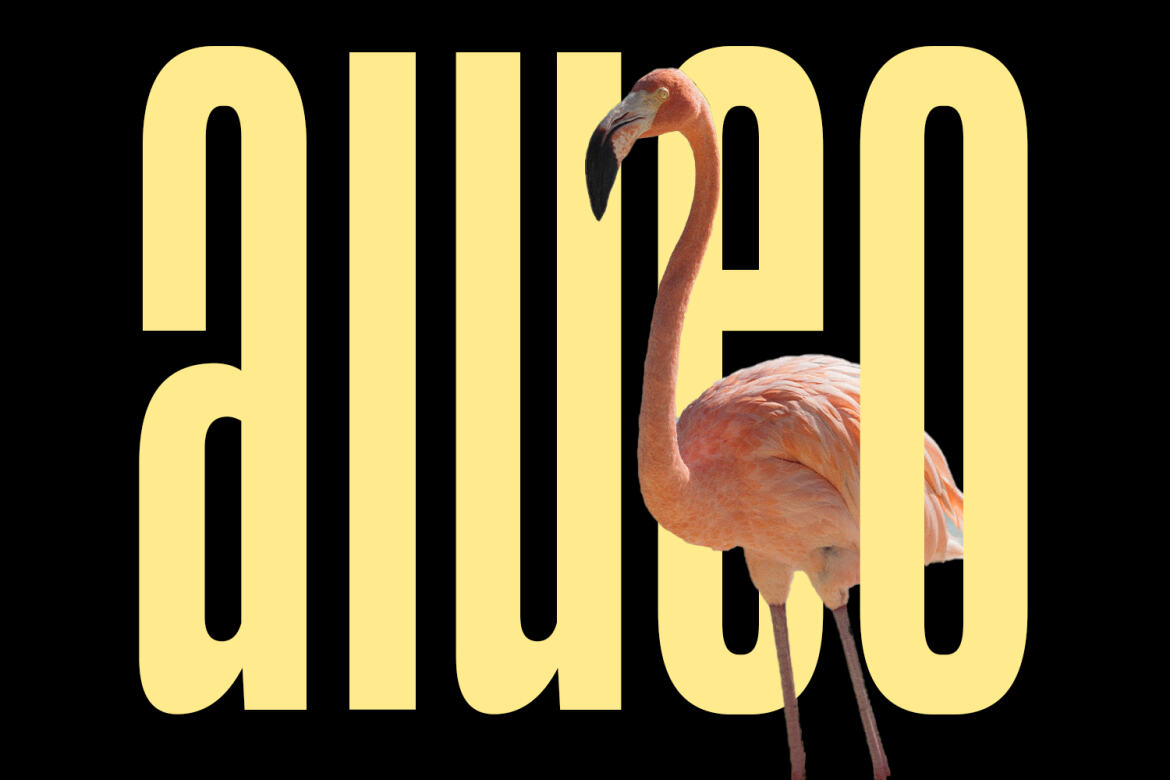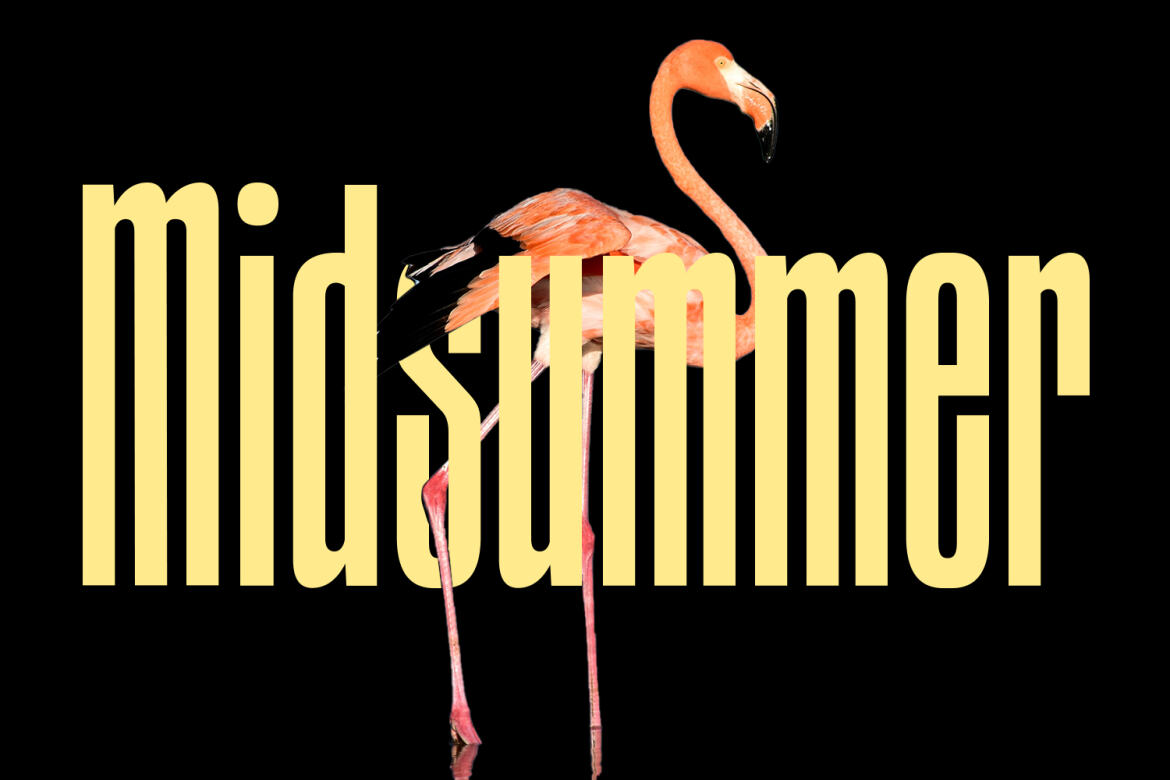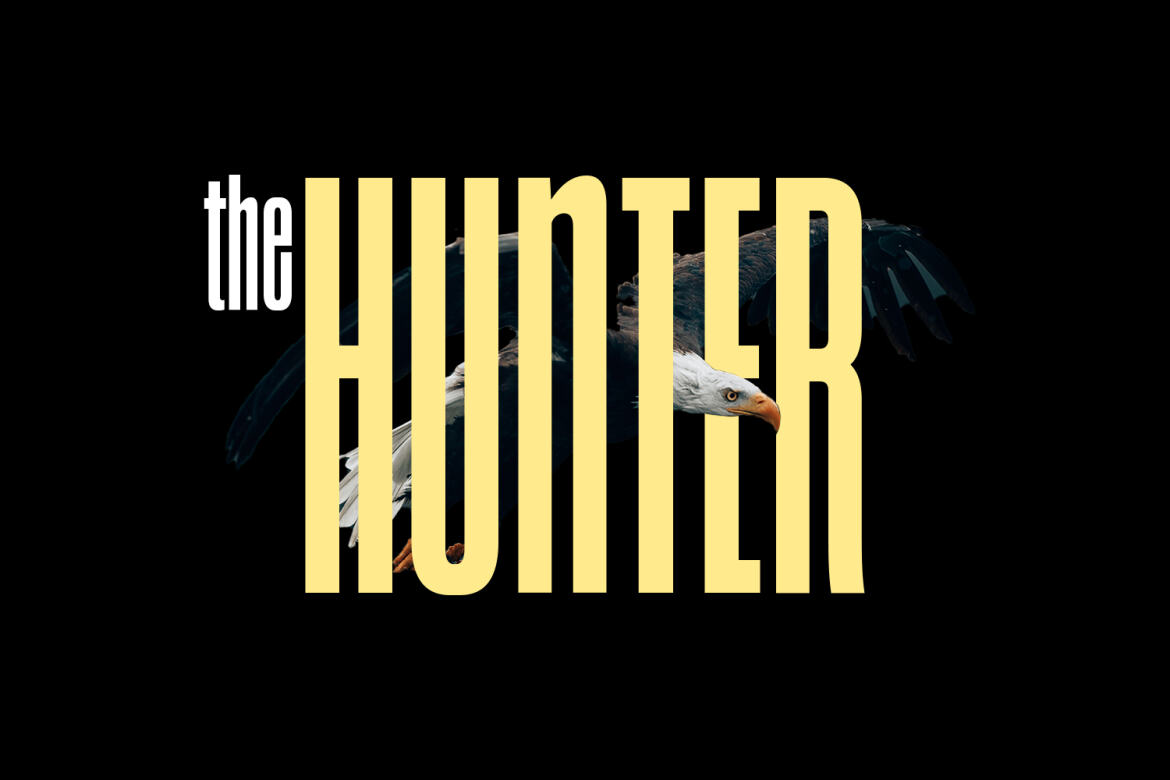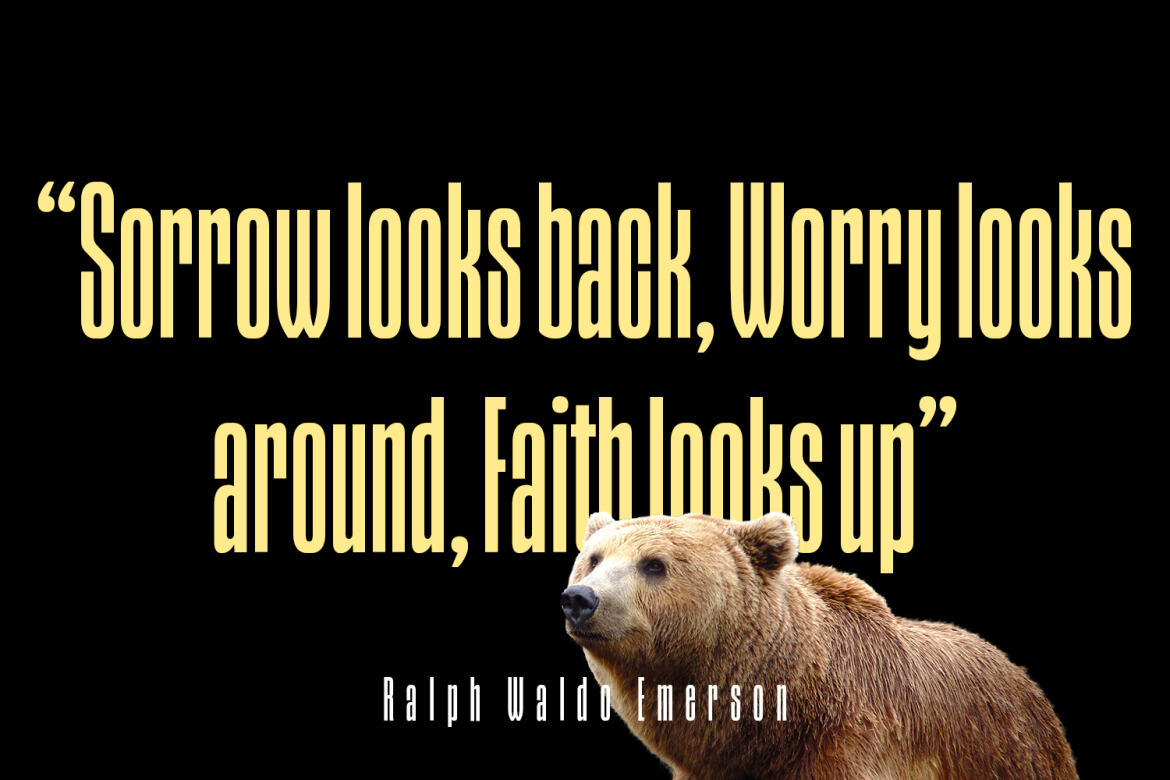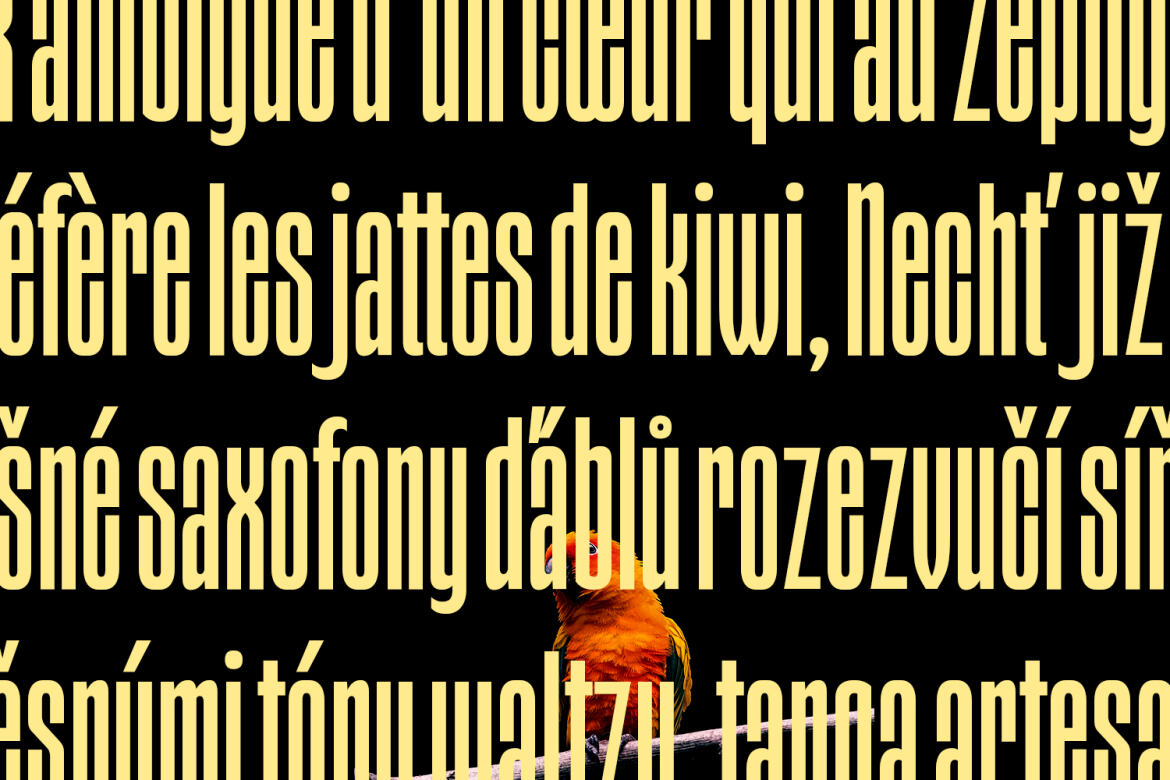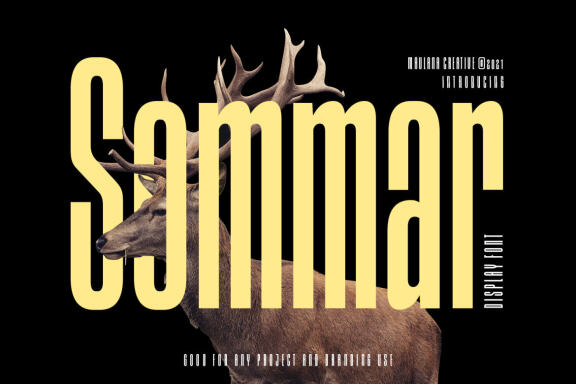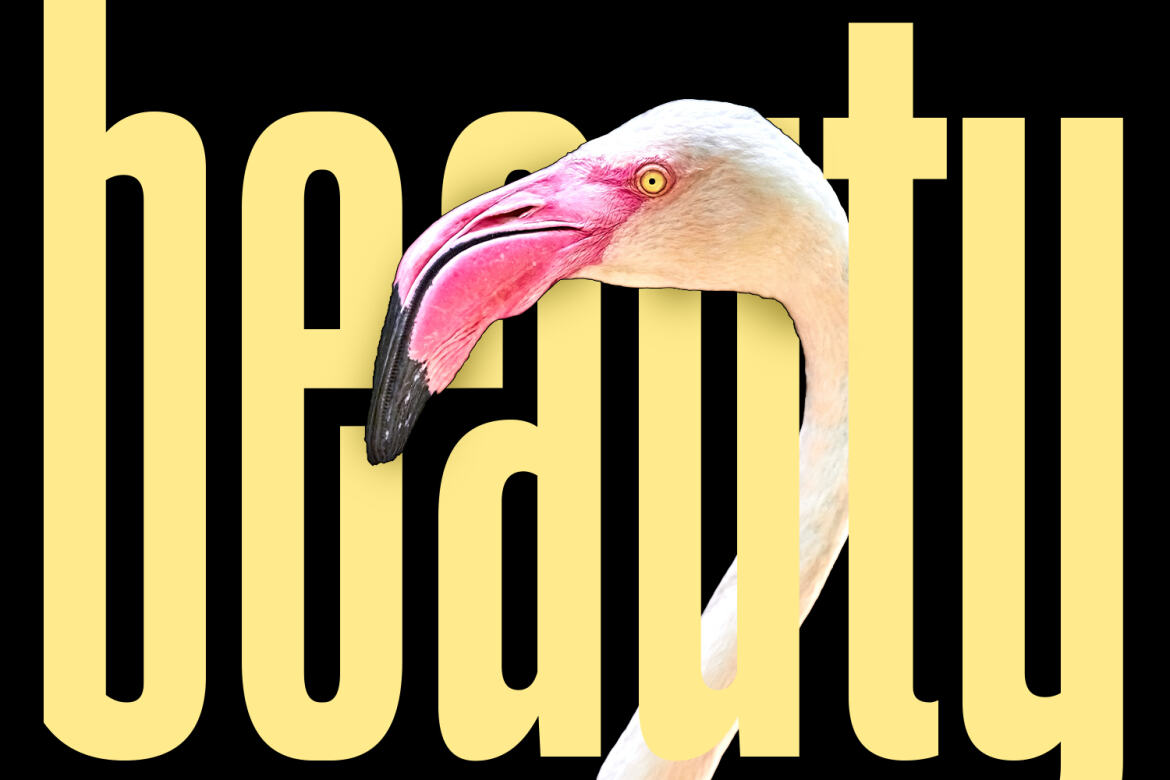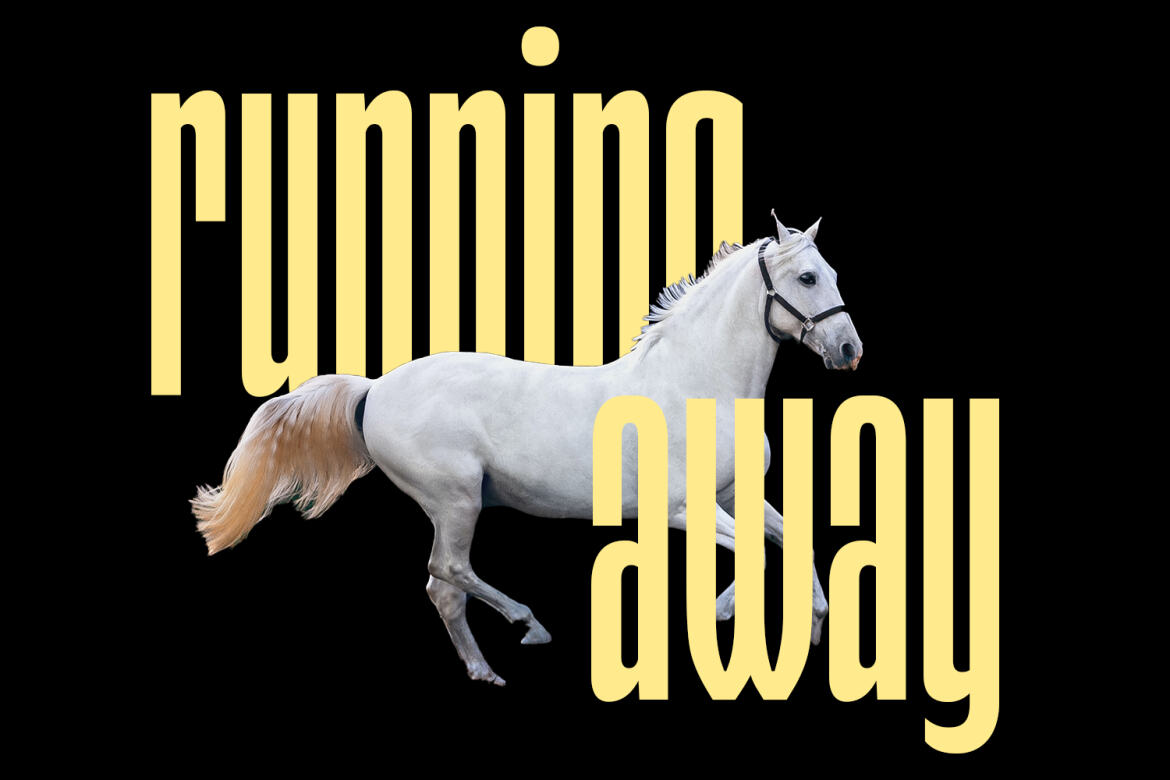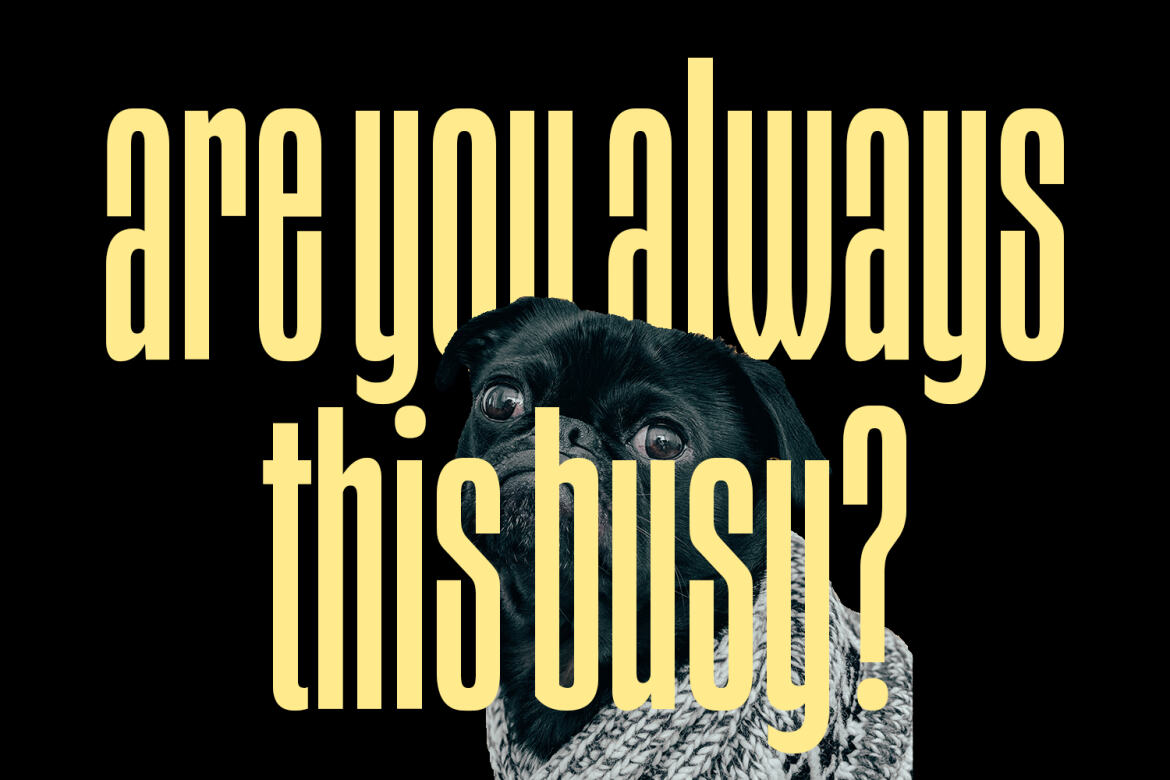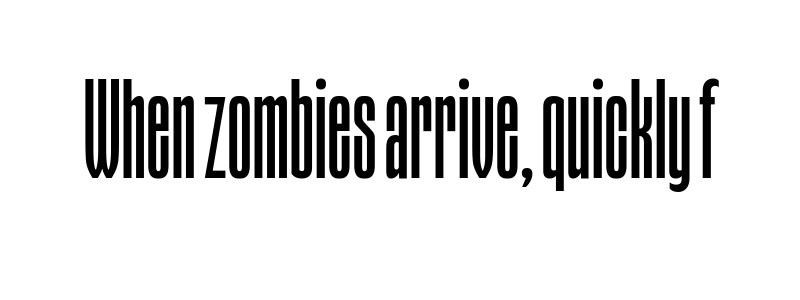
Sommar FREE Display Font
Sommar Display
Sommar is a super strong compressed font. With high legibility structure letter form. To give you an extra creative work. Sommar font support multilingual more than 100+ language. This font is good for logo design, Social media, Movie Titles, Books Titles, a short text even a long text letter and good for your secondary text font with script or signature typeface. Make a stunning work with Sommar font.